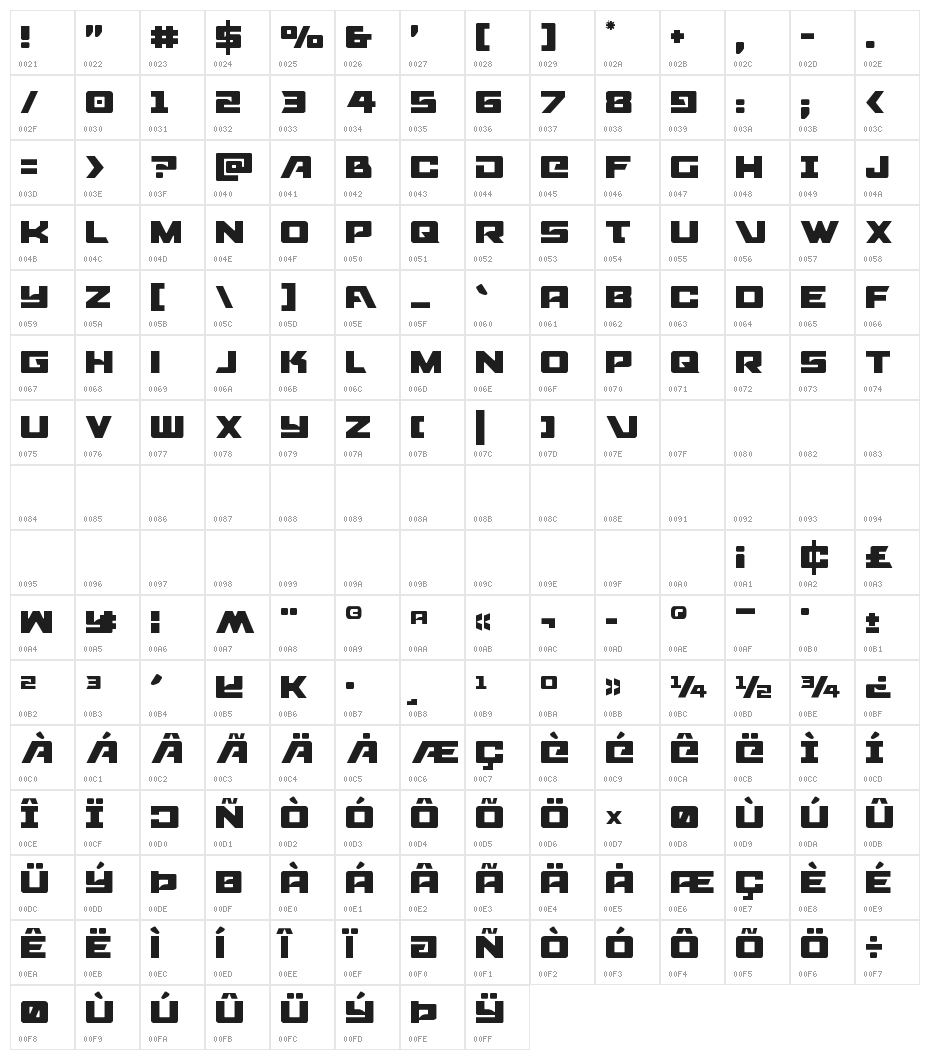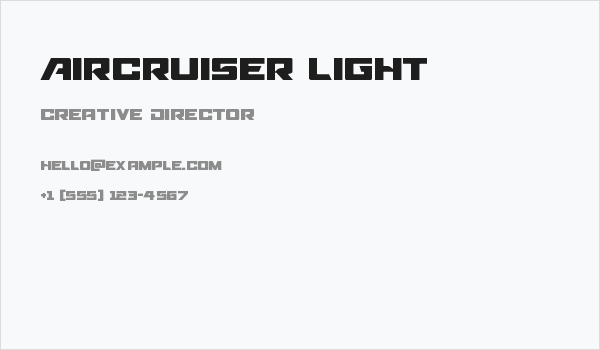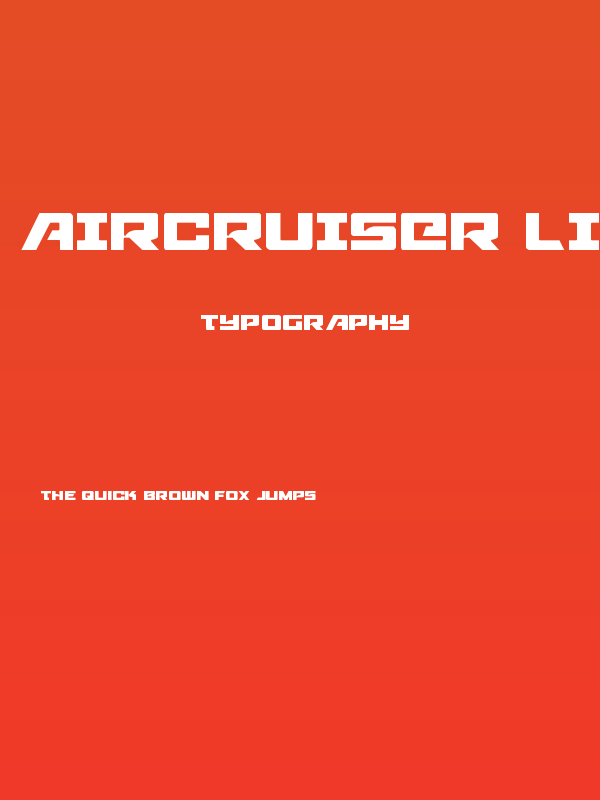
Aircruiser Light Font
Aircruiser Light Description
This font features a bold, geometric design with a futuristic and industrial feel. The characters are constructed with strong, angular lines and a uniform thickness, giving it a robust and solid appearance. The uppercase letters are particularly striking, with sharp edges and a block-like structure that conveys strength and stability. The numerals and special characters maintain this consistent style, ensuring a cohesive look across all text. The font's design is both modern and versatile, suitable for a variety of applications where a bold statement is desired.
Proposed ProjectsIdeal for use in technology branding, video game titles, sci-fi movie posters, and industrial-themed designs.